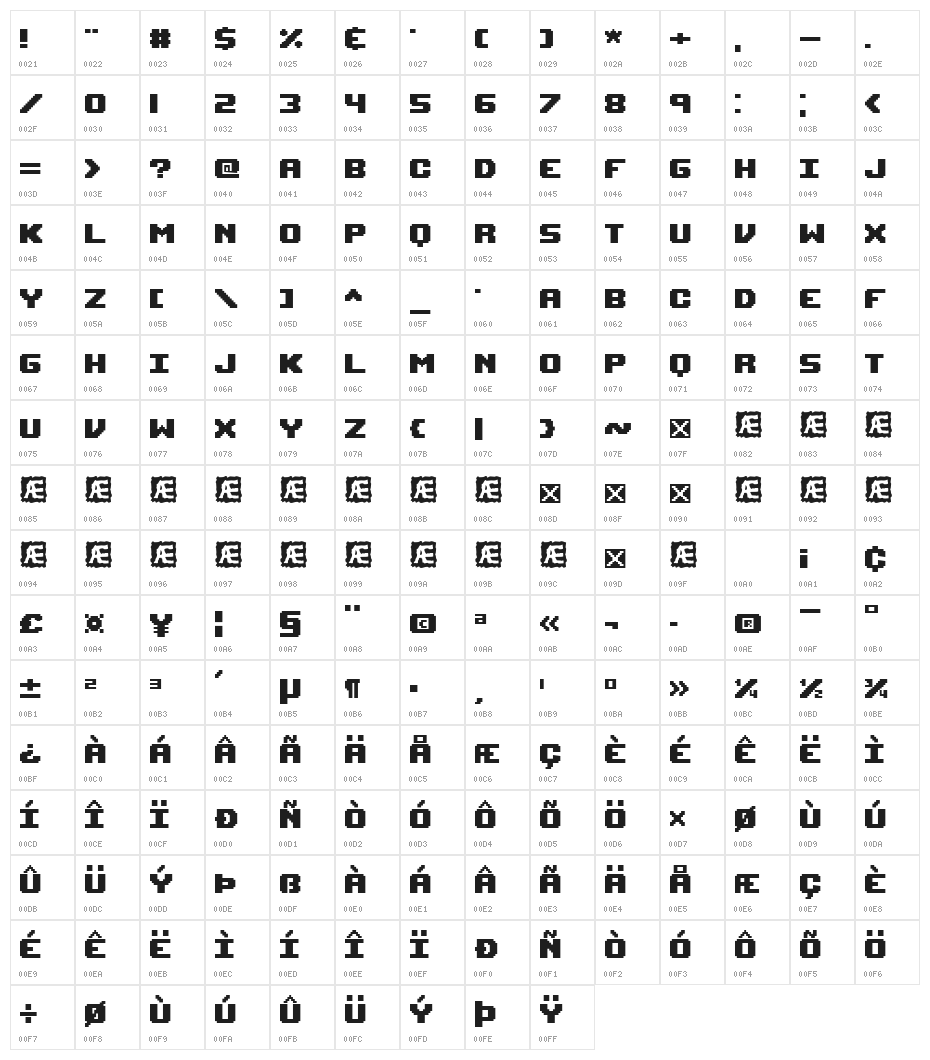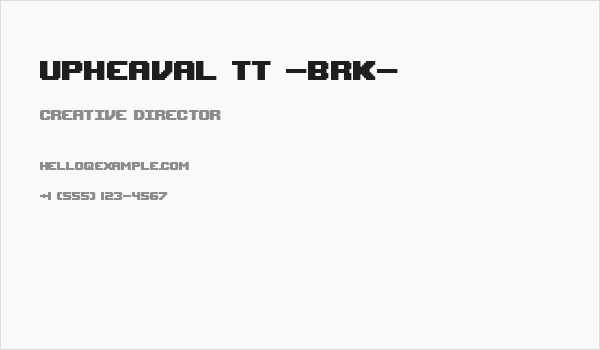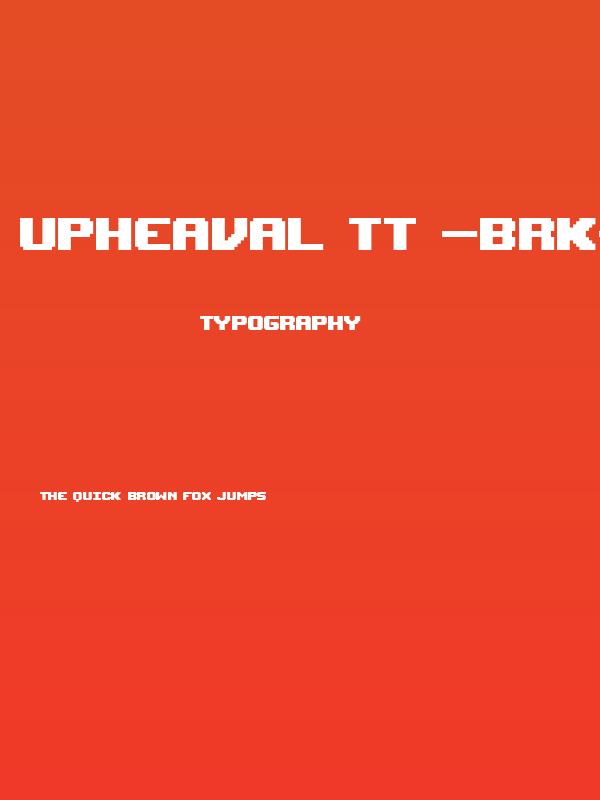
Upheaval TT -BRK- Font
Upheaval TT -BRK- Description
This font features a bold, pixelated style reminiscent of retro video games and digital displays. Each character is constructed with a blocky, geometric design, giving it a distinct, tech-inspired appearance. The uppercase and lowercase letters maintain a consistent height, contributing to a uniform look across the typeface. The numbers and special characters follow the same pixelated theme, ensuring cohesion throughout. The font's design is straightforward, with no curves or embellishments, emphasizing its digital aesthetic. This style is particularly effective for projects that aim to evoke a sense of nostalgia or a futuristic vibe.
| Overall Style | Retro, Digital |
| Proposed Projects | Ideal for video game graphics, tech-themed posters, digital art, and retro-inspired designs. |